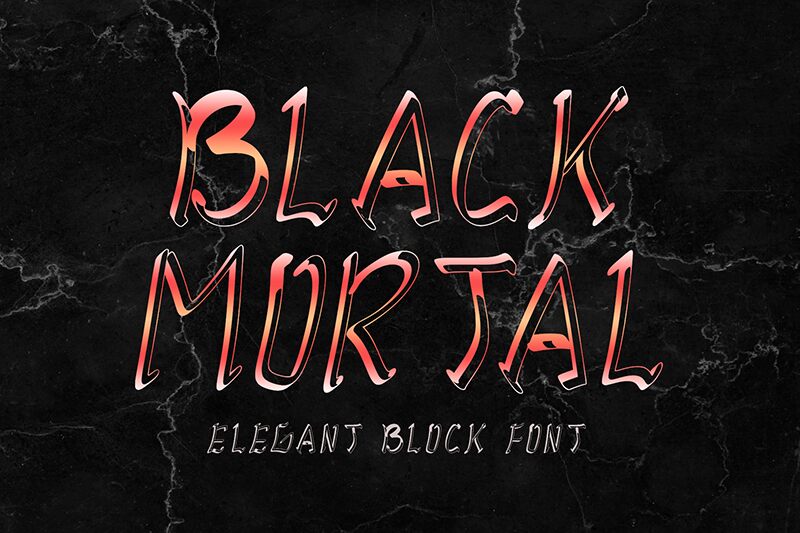
Black Mortal
Black Mortal is a graffiti font provided by Yoga Letter, a designer who has previously provided us with the script fonts Khandhita and Senda. The font itself was inspired by the art that was commonly used in the 1980s, and can be used for your personal project, or shared as long as you give credit to Yoga Letter. This new typeface was inspired by the street art movement and can be used to design graffiti backgrounds, create clothing designs, posters and flyers, logotypes, stickers, etc.
Black mortal is a free graffiti font that looks great in its original design (Black Mortal font), but can also be used with different textures and backgrounds to give your creations more of an artistic and personal look.